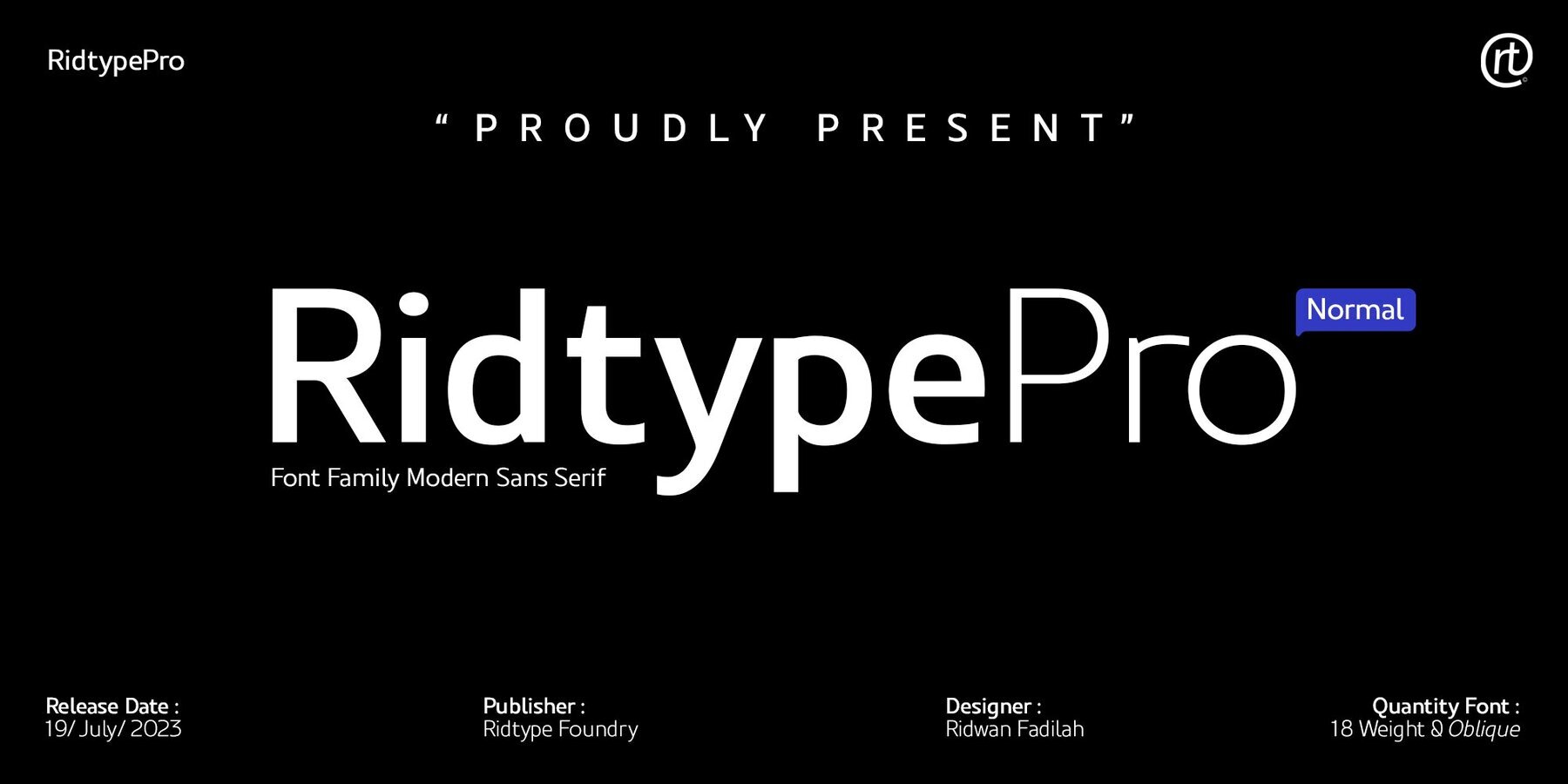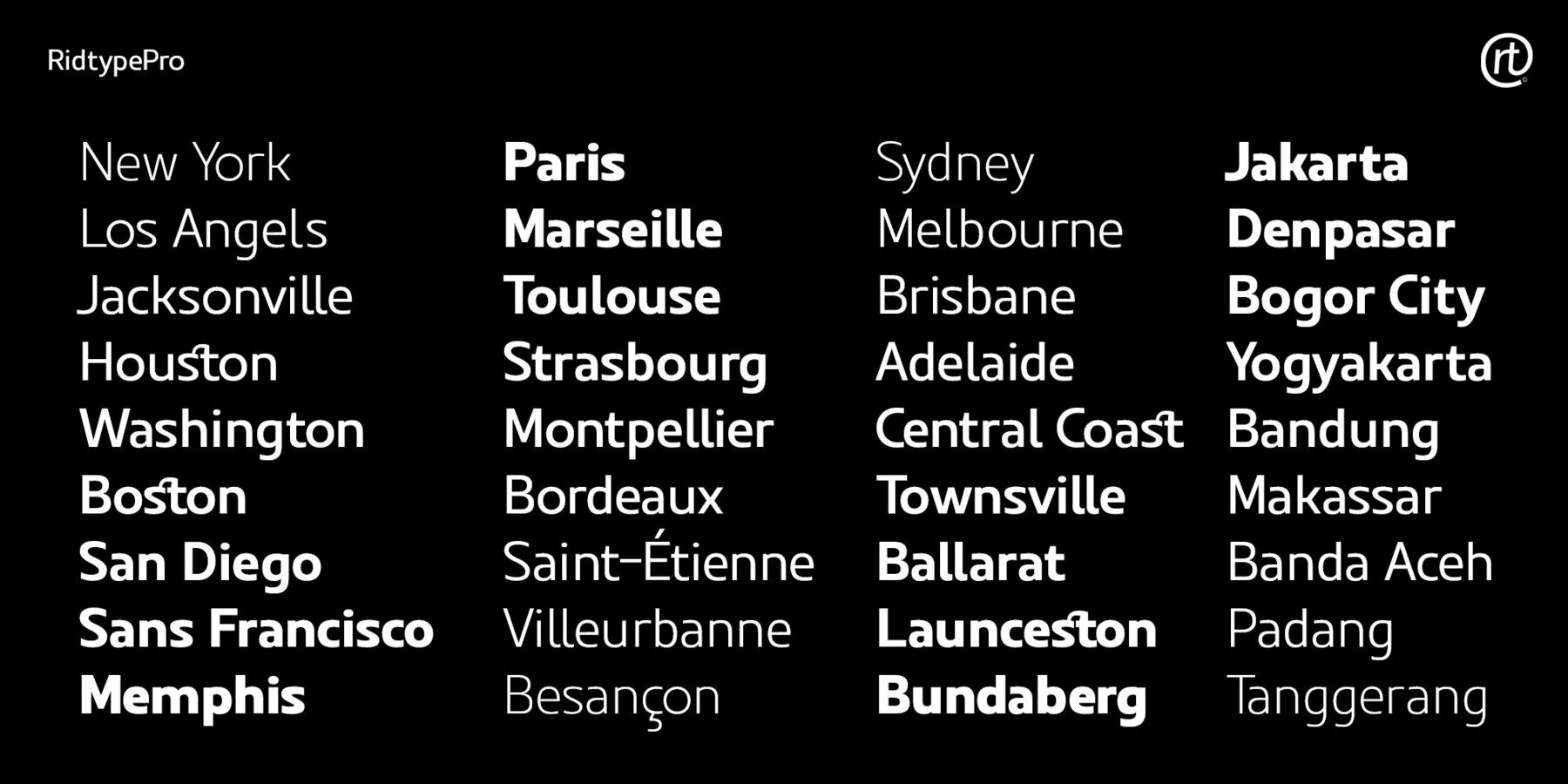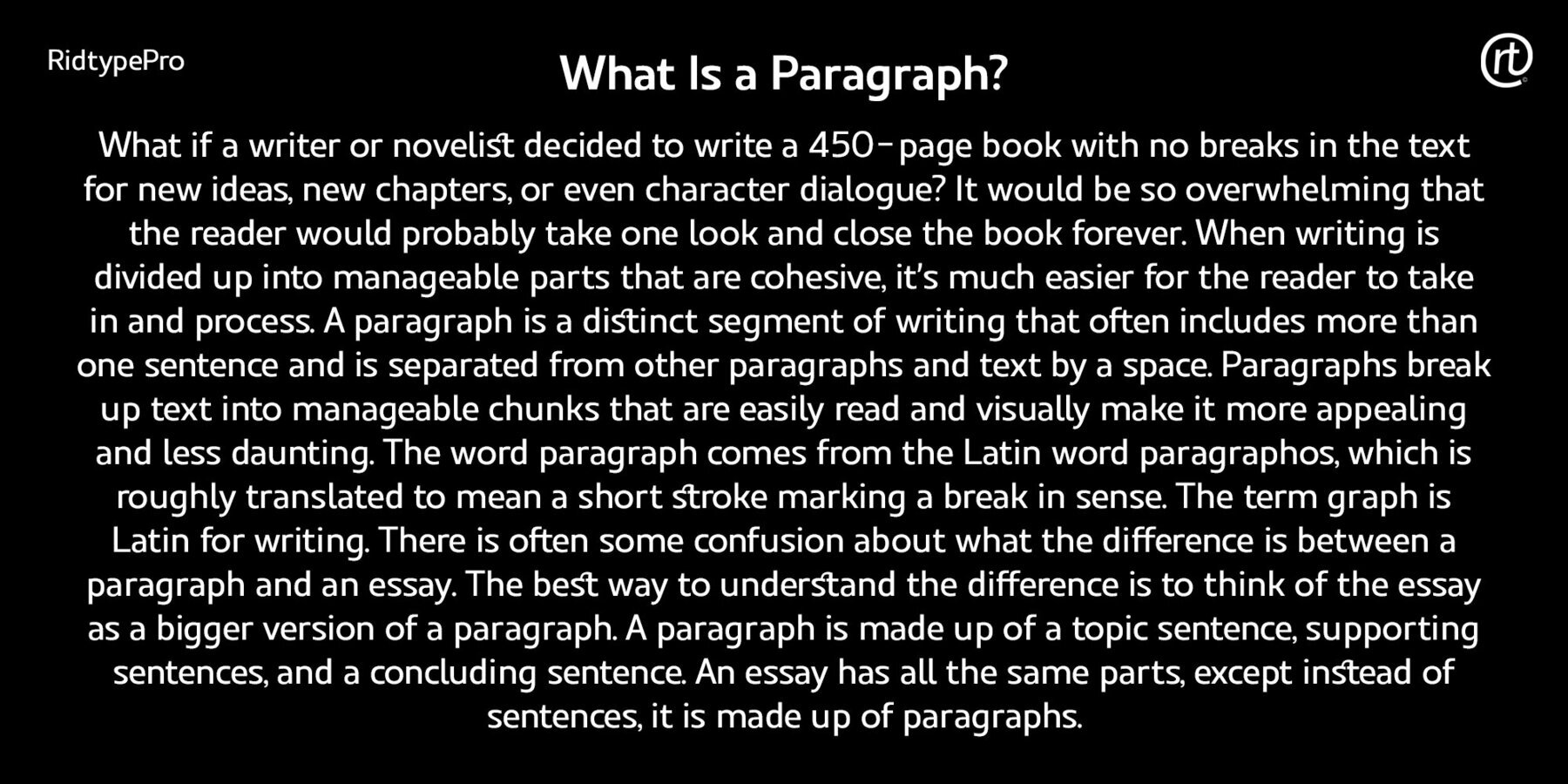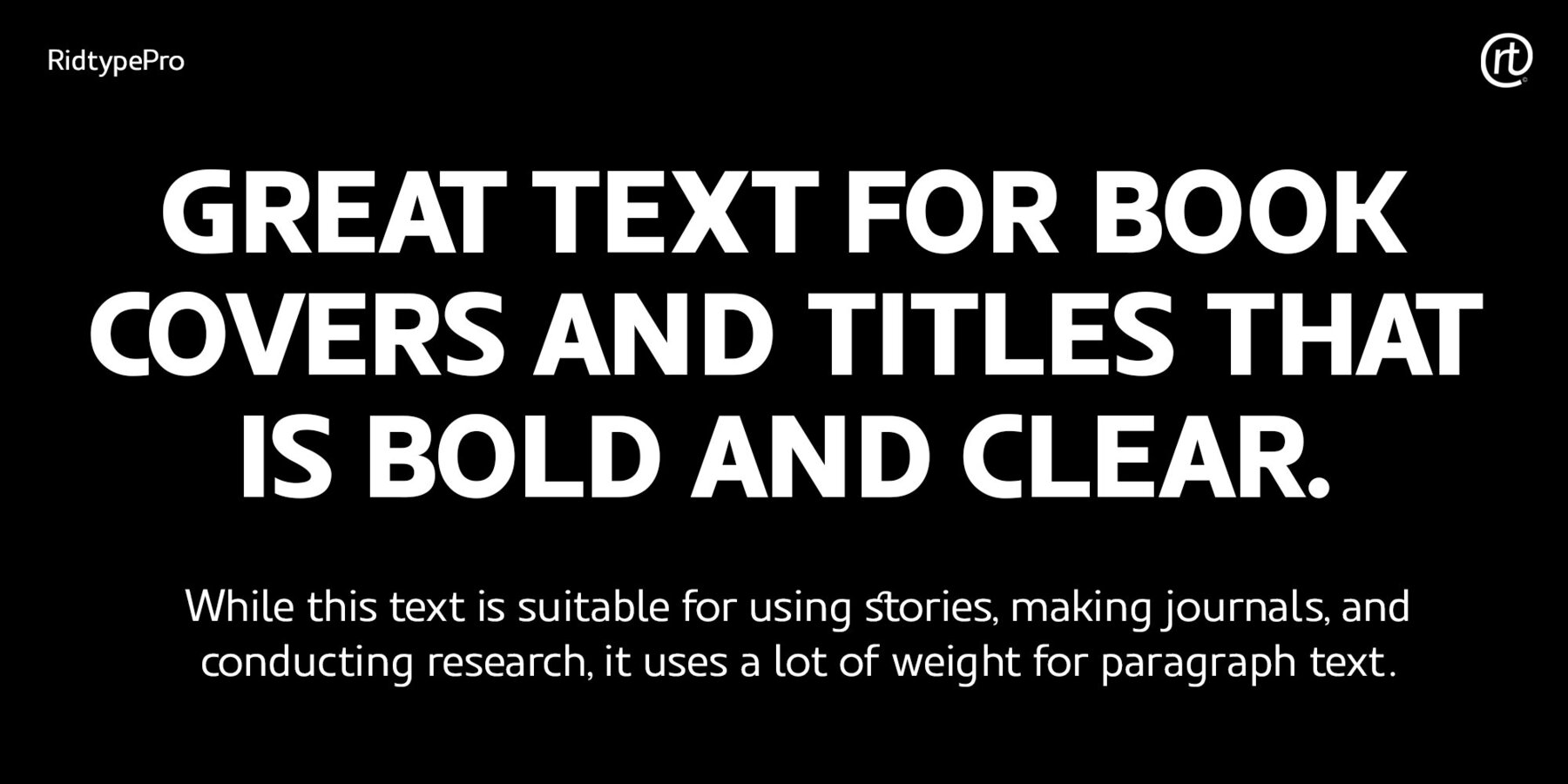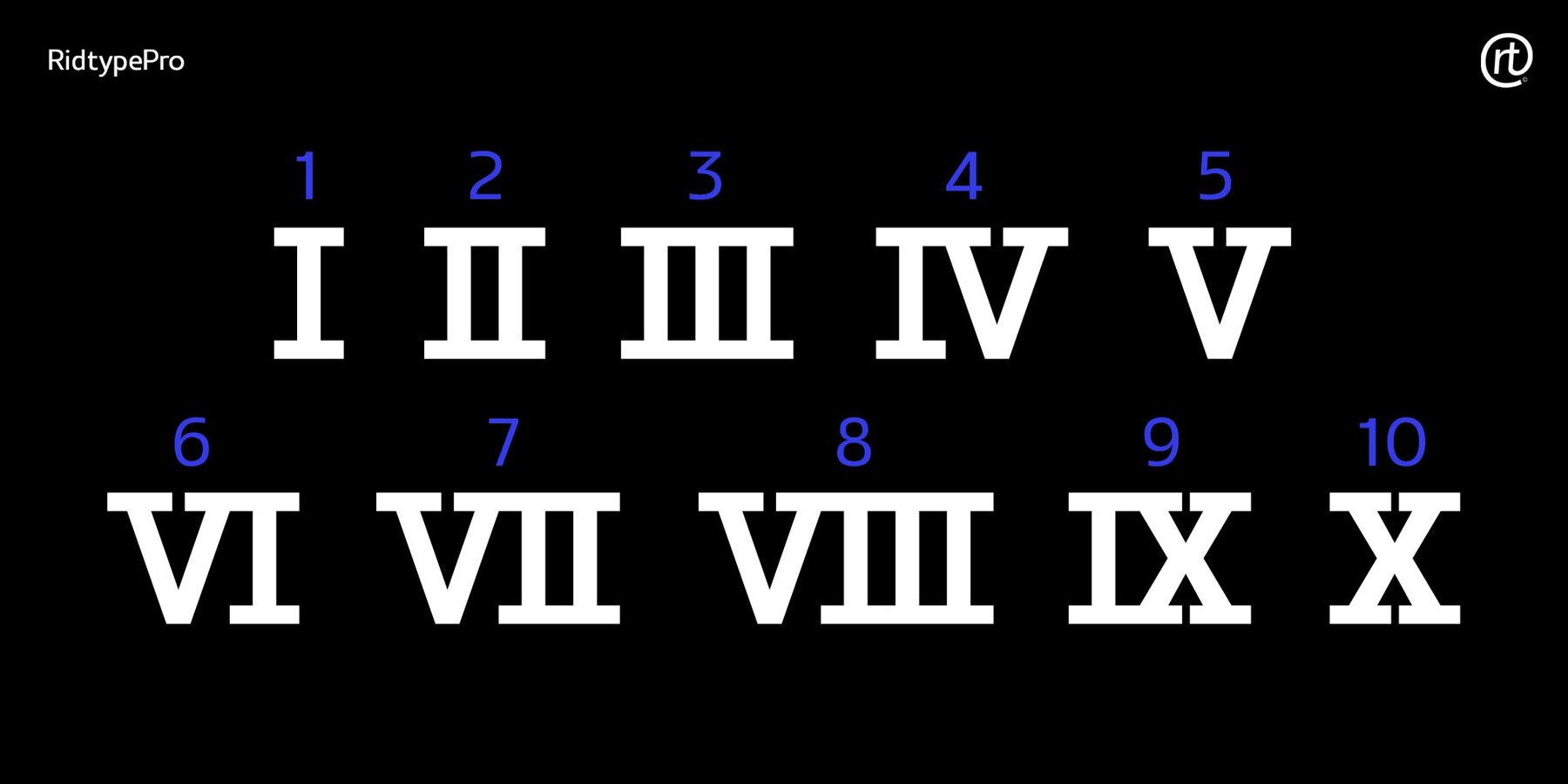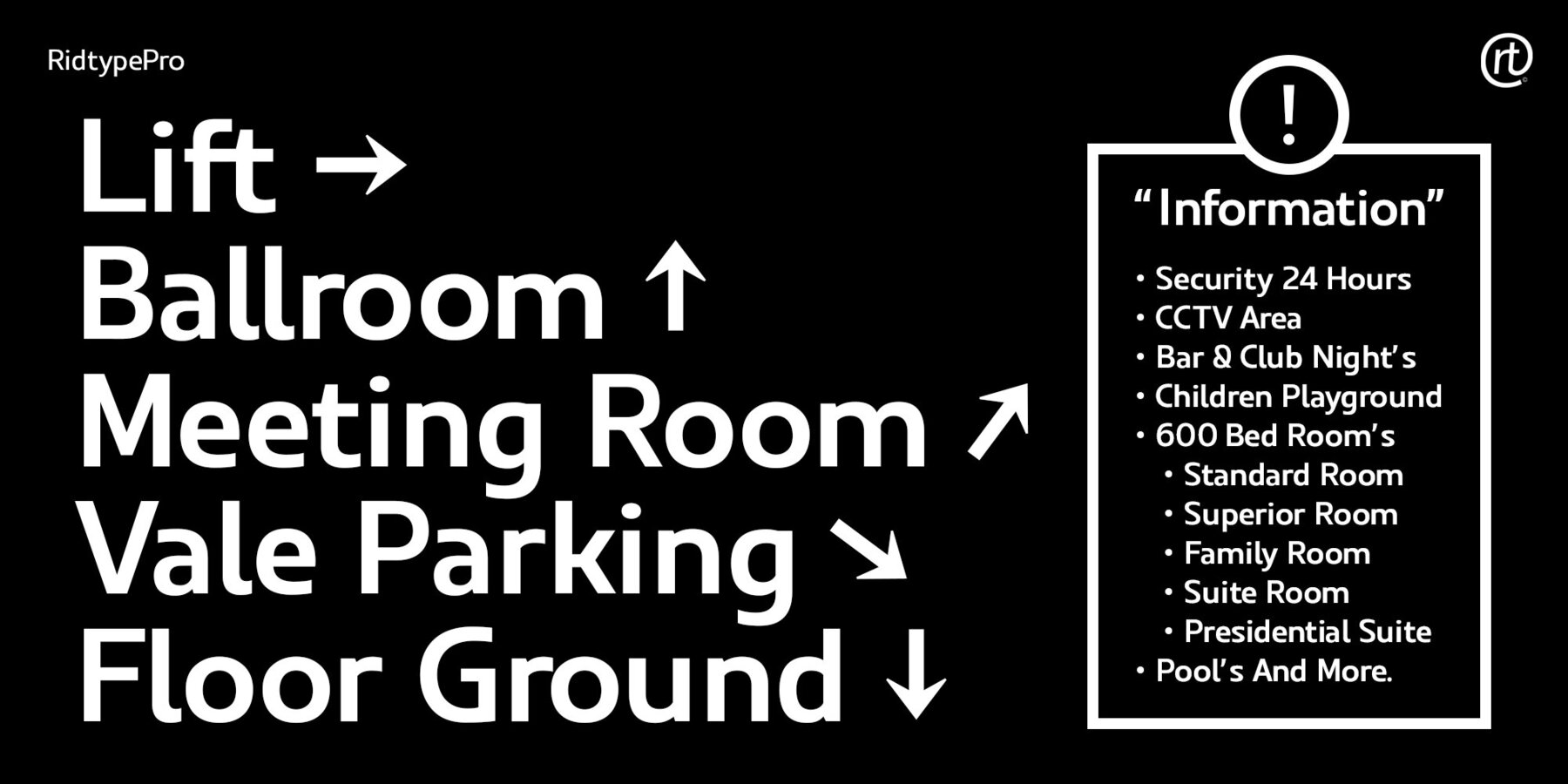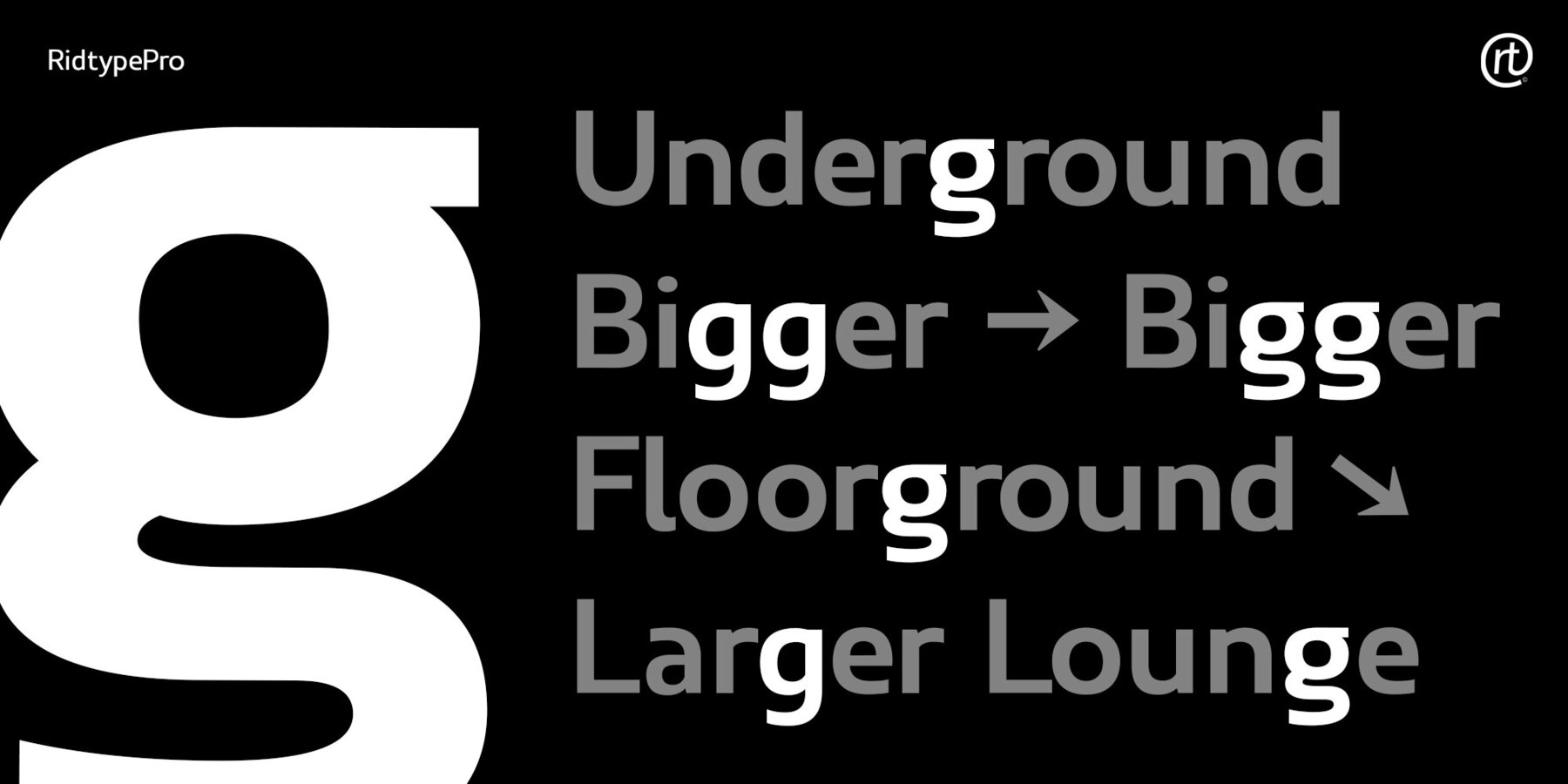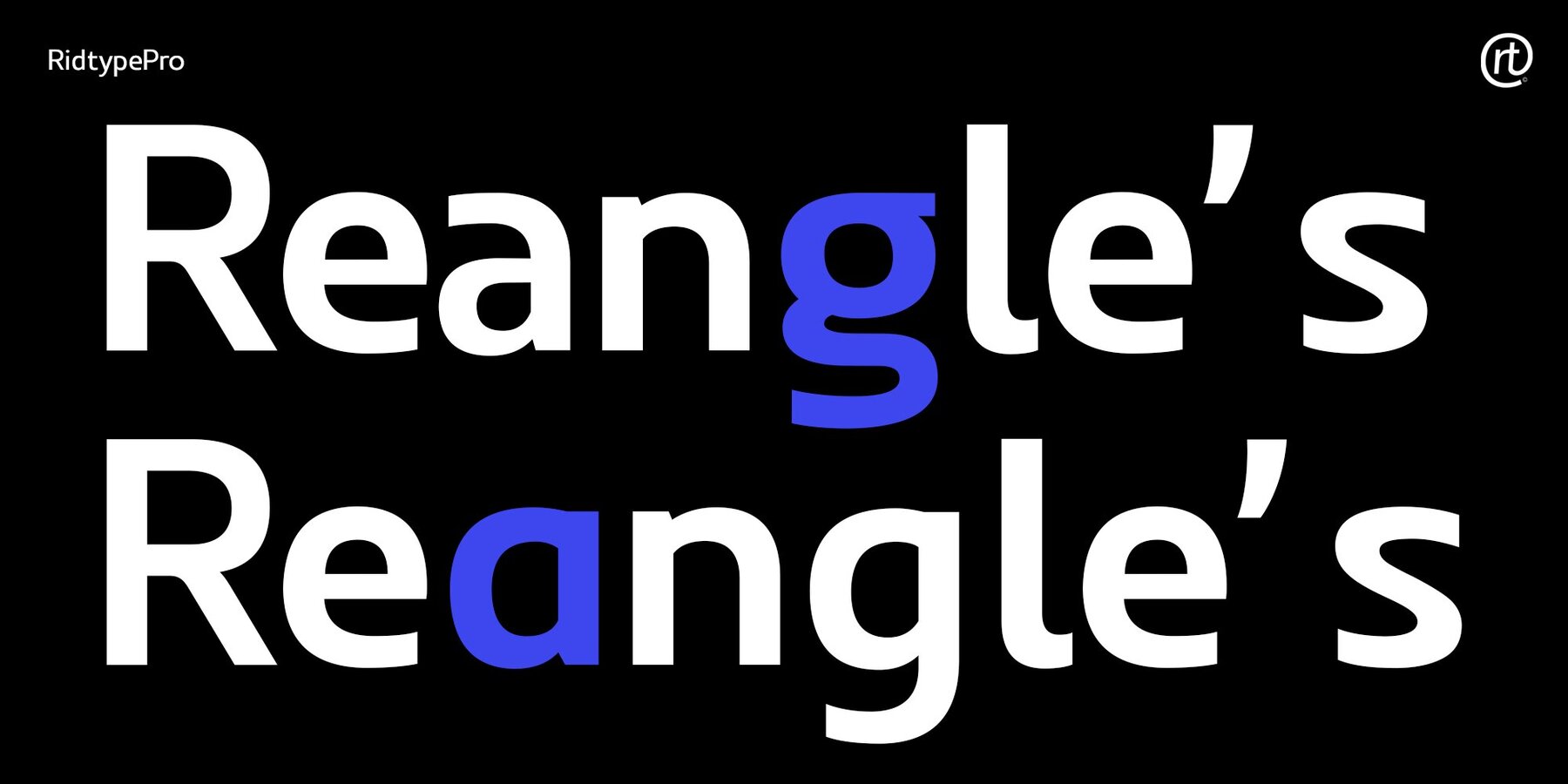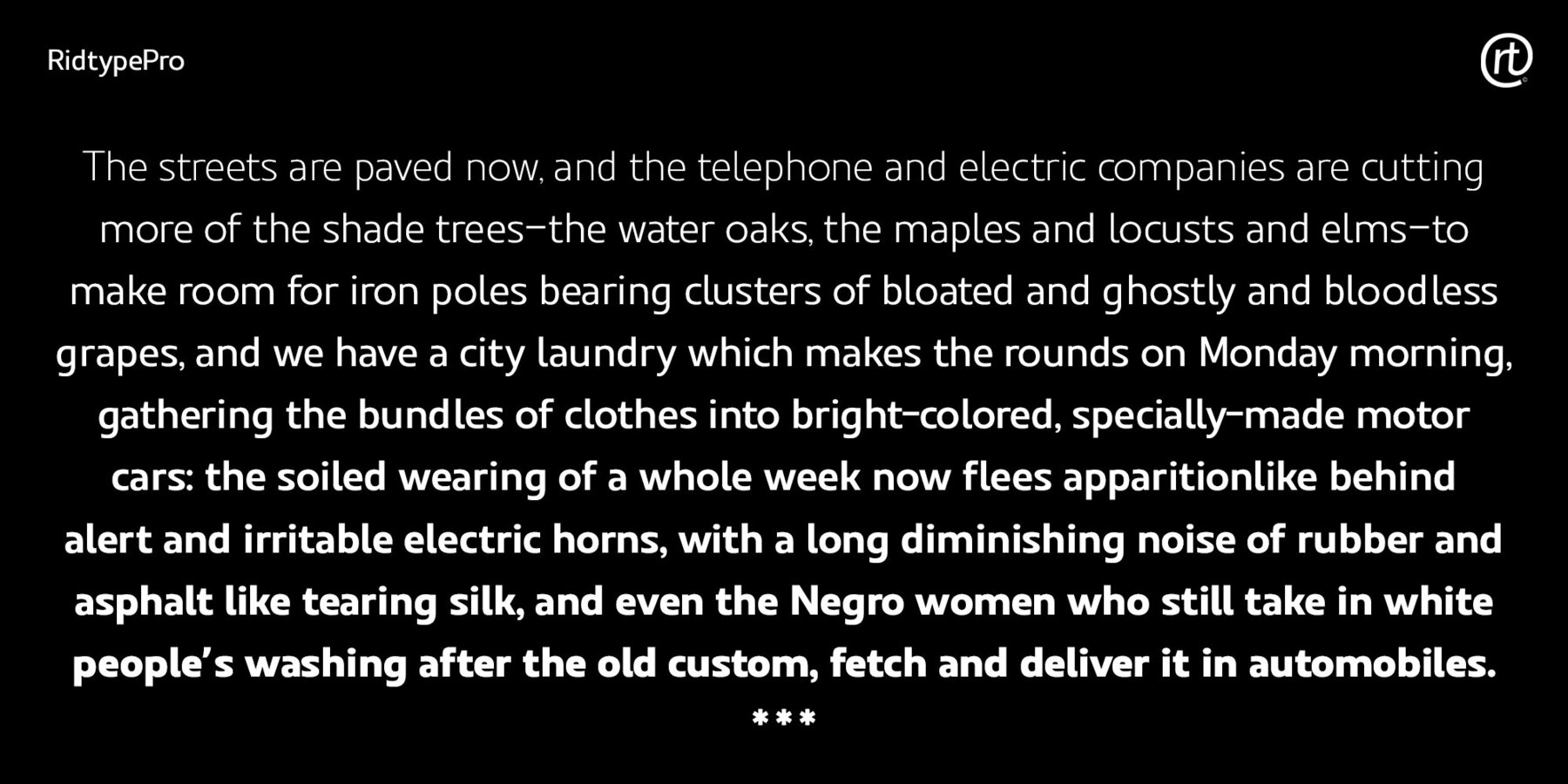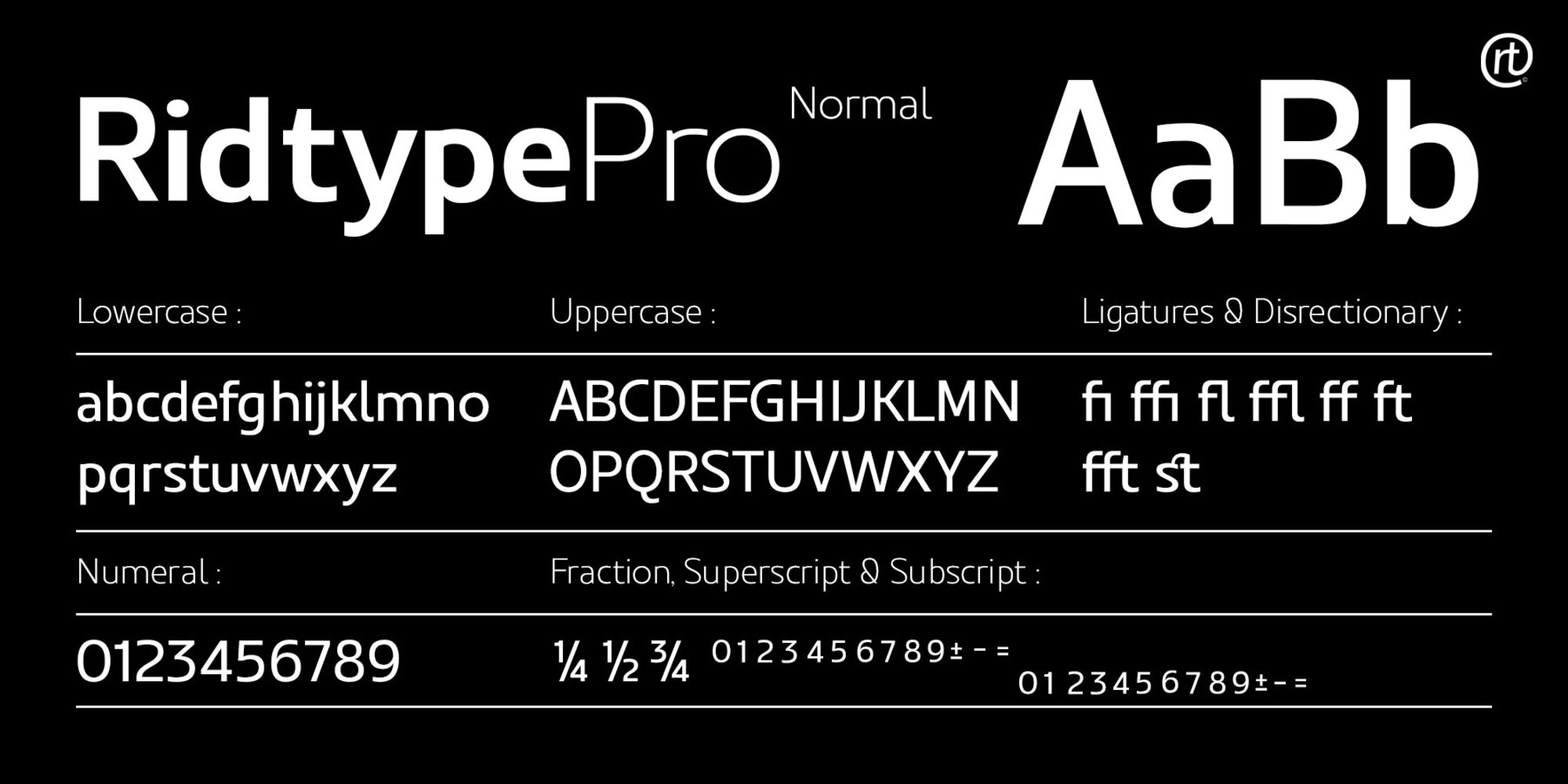
Ridtype Pro Font
Ridtype Pro is a custom font for our brand, and later this font will work in all roles in the type of brand we use. both in units of typography, printing, and type texting. This font is equipped with a modern semi-classic category type, so this font can work in all lines of business, both for supporters of implementation in modern and classic business.
This font has been designed as best as possible, both in terms of letter design and the type of weight that is made to be compatible in all roles.